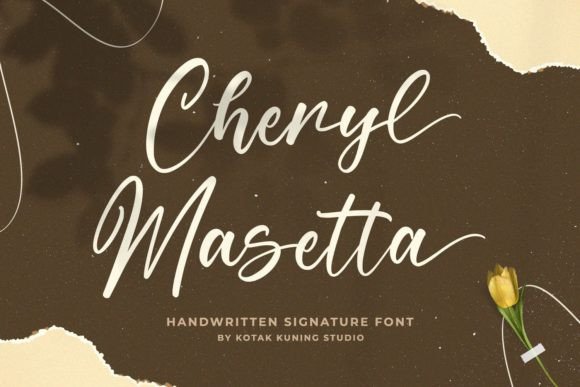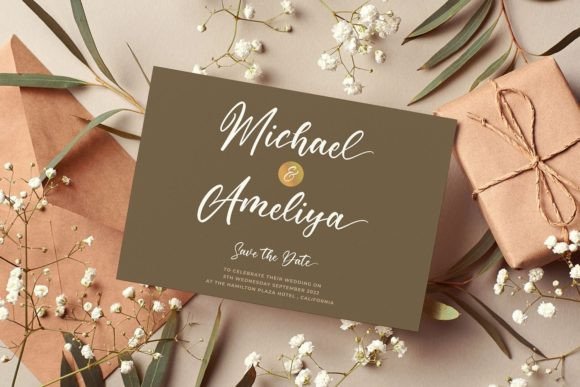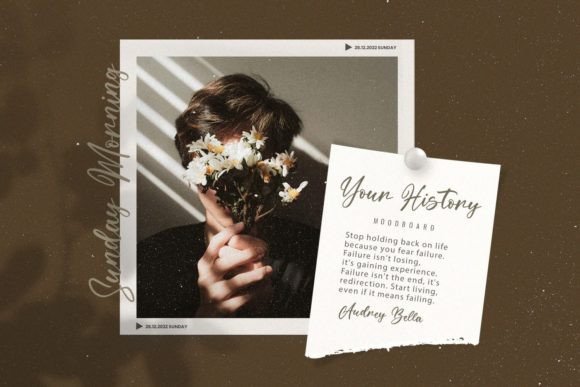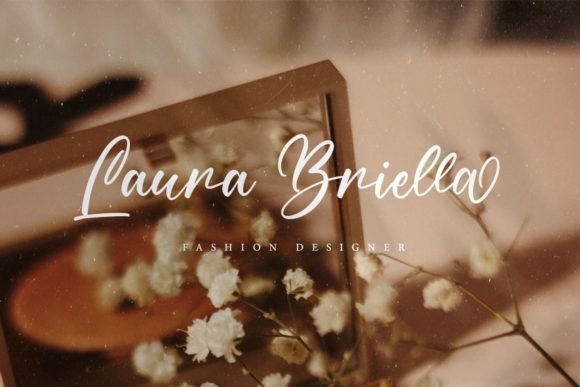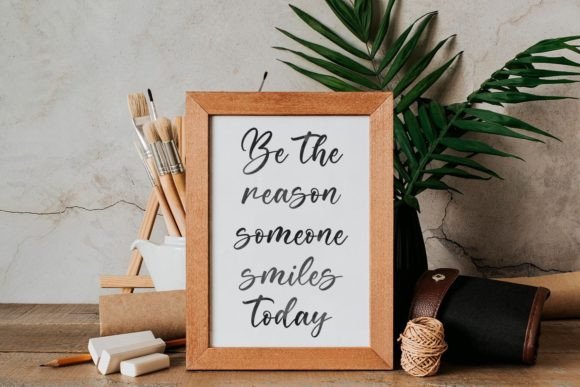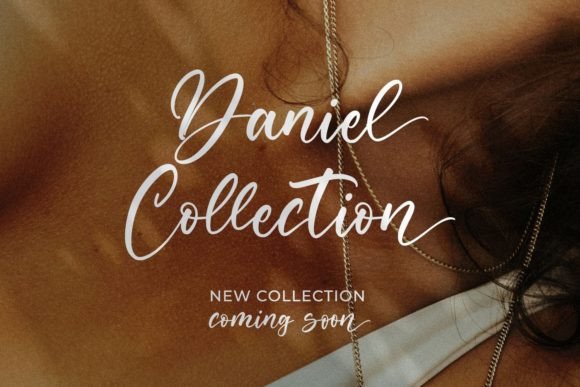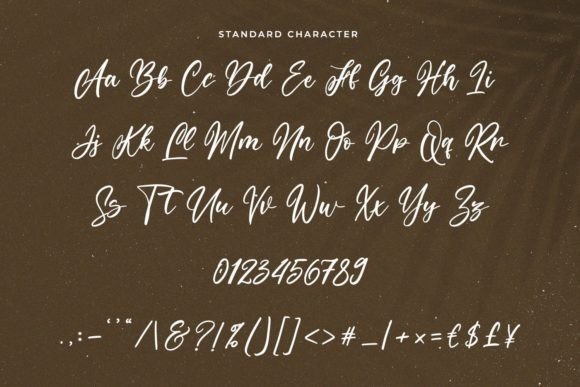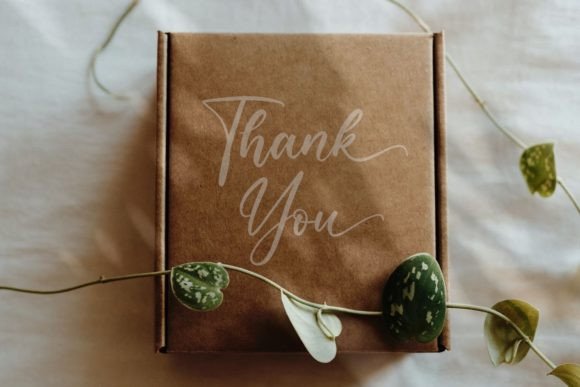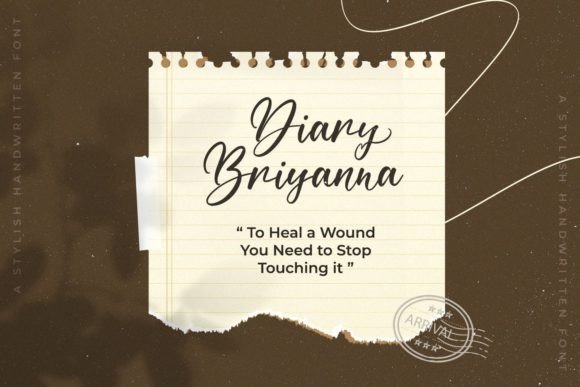
Cheryl Masetta Font
About Cheryl Masetta Font
**Cheryl Masetta: Modern and Beautiful Handwritten Font with Stylish Flow**
Introducing Cheryl Masetta, a modern and beautiful handwritten font designed with a natural and stylish flow. This font is not just a typeface; it’s a creative tool that adds a touch of contemporary elegance to your projects. PUA encoding ensures effortless access to all the glyphs and swashes, allowing you to confidently incorporate Cheryl Masetta into your designs and enjoy the stunning results.
**Natural and Stylish Flow:**
Cheryl Masetta captures the essence of a natural and stylish flow in its design. The handwritten strokes carry a sense of fluidity, creating a font that exudes contemporary charm. It becomes the perfect choice for projects that demand a modern and beautiful aesthetic.
**Versatility for Various Projects:**
The versatility of Cheryl Masetta shines through, making it suitable for a wide range of projects. Whether you’re working on branding materials, invitations, social media posts, or any other creative endeavor, this font adapts seamlessly. It becomes a stylish companion that enhances the visual appeal of your designs.
**Confidently Add to Your Projects:**
Confidently add Cheryl Masetta to your projects, knowing that it brings a modern and beautiful touch to your designs. Whether you’re creating marketing materials, personalized stationery, or social media content, this font becomes a key element in elevating the overall aesthetic.
**Love the Results:**
As you incorporate Cheryl Masetta into your projects, you’re likely to love the results. The font adds a contemporary elegance that resonates with audiences and creates a memorable visual impact. Let Cheryl Masetta be the font that turns your creative vision into stunning reality.
**Conclusion: Elevate Your Designs with Cheryl Masetta**
In conclusion, Cheryl Masetta is more than just a font; it’s a statement of modern beauty and style. Whether you’re a designer working on professional projects or an enthusiast bringing creativity to personal endeavors, Cheryl Masetta becomes the stylish and beautiful handwritten font that enhances your designs. With its PUA encoding, this font empowers you to explore the full spectrum of its contemporary charm, making it a standout choice for your design projects.